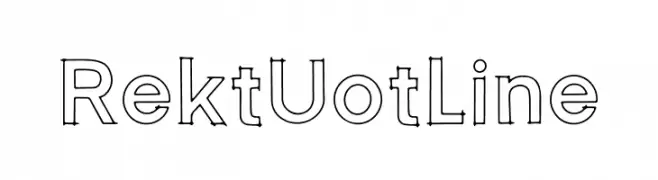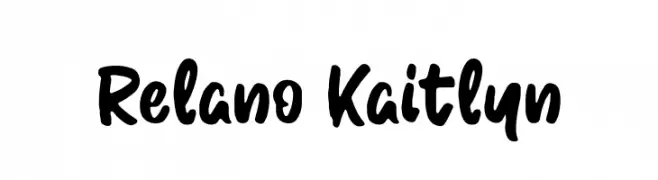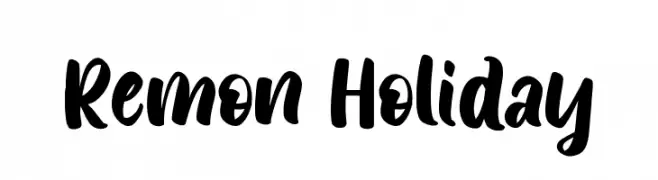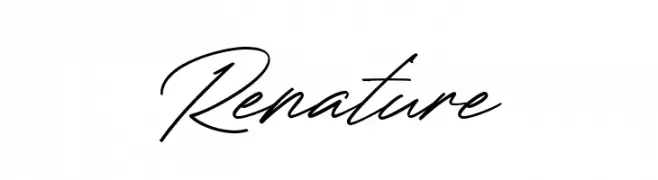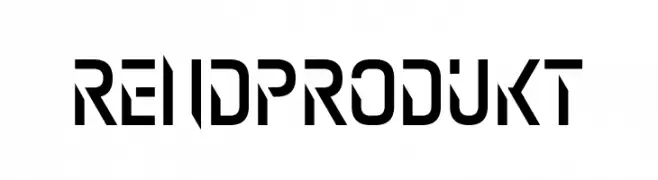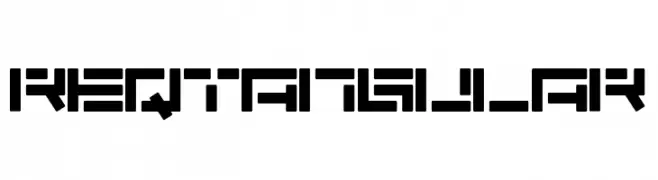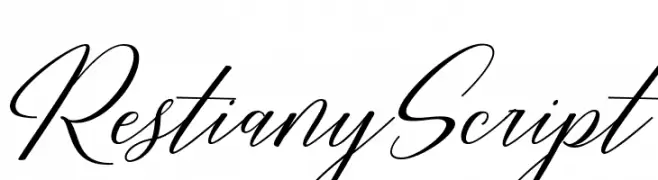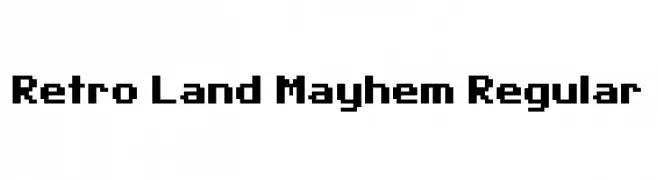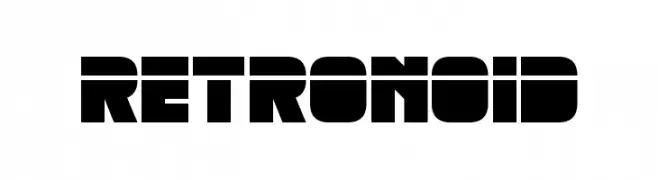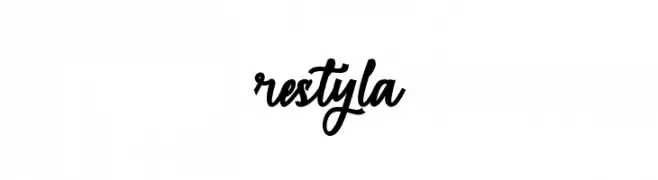
A modern outline font with bold, well-defined characters.
A bold, expressive handwritten font with playful curves and thick strokes.
A bold, playful handwritten font with thick, rounded strokes and a lively appearance.
A fluid and elegant cursive script font with a handwritten style.
A bold, modern font with sharp, angular cuts and high contrast.
A bold, geometric font with a futuristic and digital aesthetic.
A sophisticated script font with fluid, connected strokes and elegant curves.
A bold, decorative script font with dramatic flourishes.
A bold, pixelated font with a retro, 8-bit video game aesthetic.
A bold, geometric font with a futuristic and retro style.